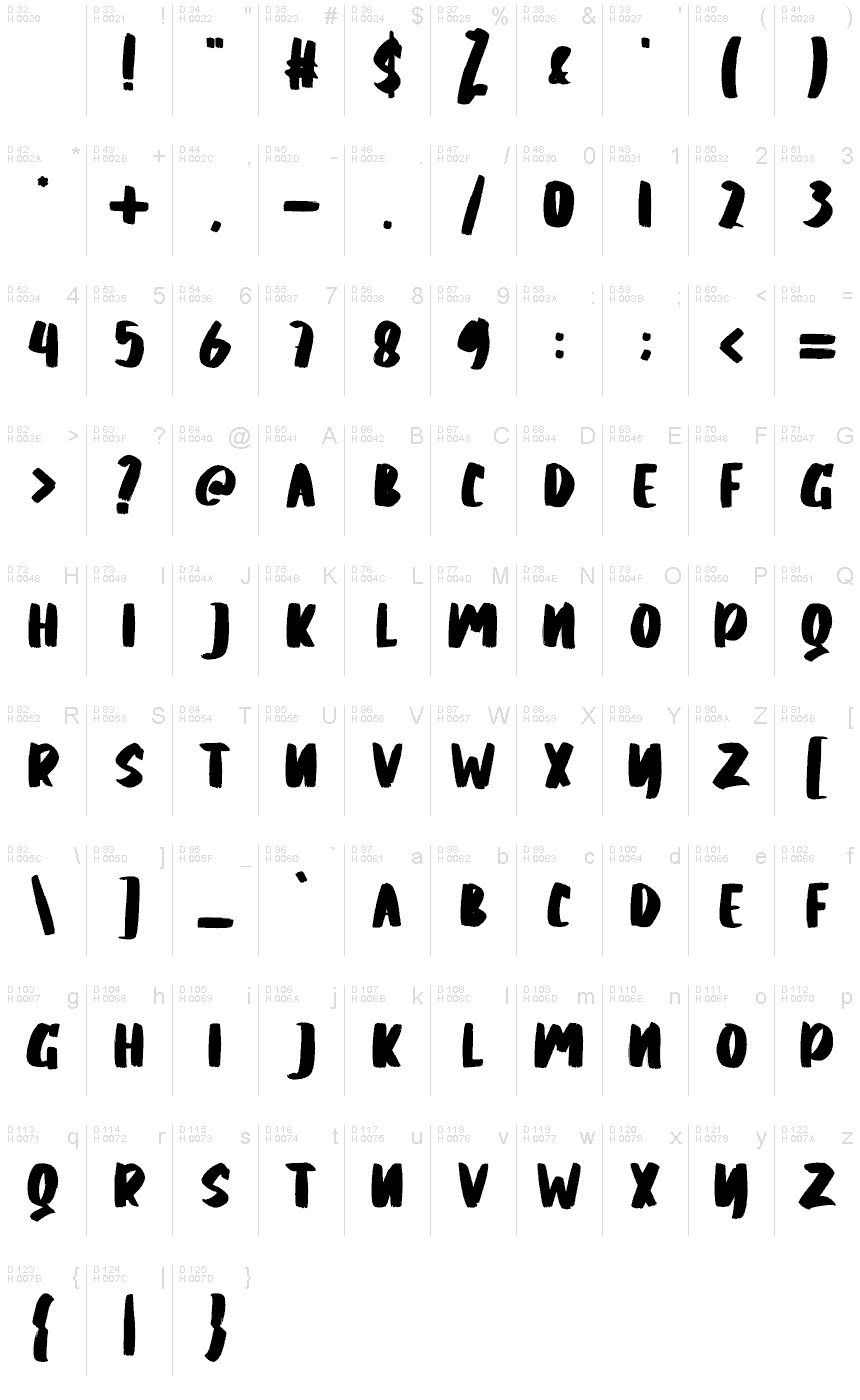
Harley
Harley font by Skiiller Studio is a brush font with a bold and expressive appearance. Its handcrafted style exudes creativity, showcasing an artistic flair and capturing a casual vibe. The energetic atmosphere created makes it perfect for branding projects that need to stand out.
This free handwritten font is ready to add a touch of elegance and creativity in logo designs, posters, flyers, prints, social media banners or advertisements. It’s also ideal for creating typography on t-shirts or any clothing items. As such, let each character speak to the viewers in magazines or books typography. Use Harley’s characters on your first-run or limited-time board game decks/cards. Packaging designs are also all right to be done with this hand-brushed typeface!